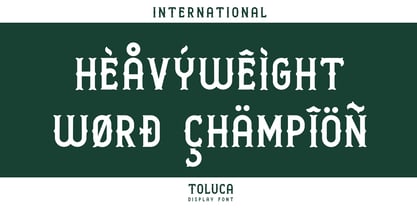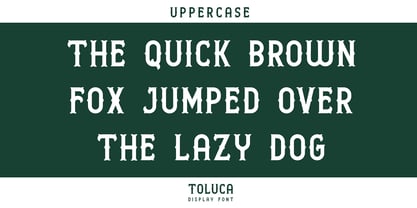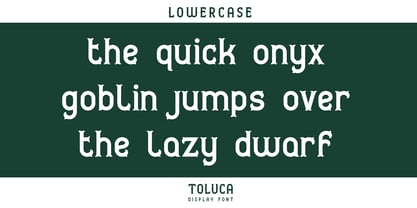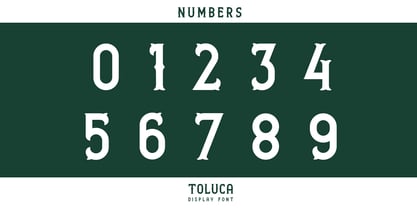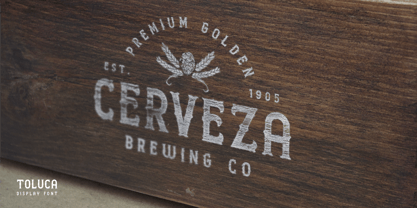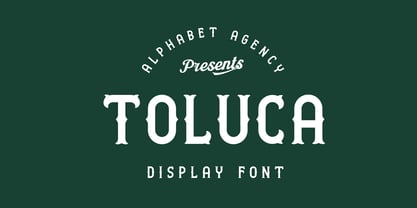
Toluca
by Alphabet Agency
The Toluca Font Family was designed by Swinn Jonathan and published by Alphabet Agency. Toluca contains 1 styles. More about this family
Alphabet Agency proudly presents Toluca, a serif display font inspired by old signage typography. It takes it name from the Mexican city, Toluca and reflects influence from the region in its design. Toluca projects a traditional aura with the beautiful serif design, classic strong straight lines and circular curves. The font can work great presenting a beer company name as captured in the example picture provided. The font contains uppercase, lowercase, numbers, punctuation, and basic Latin characters. The font and images were all created by Jonathan Swinn.
Designers: Swinn Jonathan
Foundry: Alphabet Agency